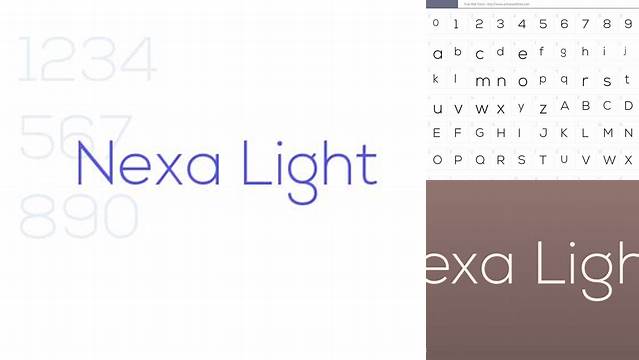
Nexa Light: Free Font Download Guide
Nexa Light is a popular and versatile font that's perfect for a wide range of design projects. In this guide, we'll walk you through everything you need to know about Nexa Light, including where to find a free download, how to use it, and some creative ideas to get you started. So, let's dive in, guys!
1. What is Nexa Light Font?
Nexa Light is a modern sans-serif typeface known for its clean lines and geometric design. Created by Fontfabric, it's part of the larger Nexa family, which includes various weights and styles. Nexa Light is particularly favored for its readability and minimalist aesthetic, making it suitable for both headlines and body text. Its versatility has made it a staple in graphic design, branding, and web design projects.
When you're looking for a font that balances professionalism with a touch of contemporary flair, Nexa Light is a solid choice. Its geometric structure ensures clarity, while its light weight adds a subtle elegance. Think of it as the font that can dress up or dress down depending on the occasion. From corporate reports to creative posters, Nexa Light adapts seamlessly, giving your designs a consistent and polished look. Its broad character set supports multiple languages, making it a global-friendly option for international projects. Many designers love it, and for good reason: it’s a reliable workhorse that delivers quality every time.
2. Key Features of Nexa Light
Nexa Light boasts several key features that make it a standout font. Its clean, geometric structure provides excellent readability, even at smaller sizes. The font includes a comprehensive set of characters, supporting multiple languages and various typographic symbols. Additionally, Nexa Light offers a balanced design, making it suitable for both display and body text, enhancing its versatility across different design applications. The consistent weight and spacing contribute to a harmonious visual experience, ensuring that your text looks polished and professional in any context.
One of the most appealing features is its modern aesthetic, which lends a contemporary feel to any project. It's not just about looking good; it's about making your content accessible and engaging. The clear, uncluttered forms ensure that readers can easily digest information, whether it's on a website, in a brochure, or on a poster. Plus, the font’s adaptability means you can use it across various mediums without losing its impact. It’s designed to work seamlessly in both print and digital environments, making it a reliable choice for any designer. Its wide range of characters also supports different languages, ensuring that your message resonates with a global audience. It’s a font that truly understands the needs of modern design.
4. Using Nexa Light in Your Projects
Nexa Light's versatility makes it ideal for various projects. Use it for website headers, body text, logos, and branding materials. Its clean appearance ensures readability, making it perfect for both print and digital media. Experiment with different font sizes and weights to create visual hierarchy and emphasis. Pair it with bolder fonts for contrast or use it as the primary font for a minimalist design.
Consider how Nexa Light can elevate your brand's visual identity. Its modern aesthetic can bring a touch of sophistication to your marketing materials, from business cards to social media graphics. When designing a website, Nexa Light can improve user experience by ensuring content is easily readable and visually appealing. Think about using it in infographics to present data in a clear and engaging manner. The key is to leverage its strengths – its clarity, balance, and contemporary feel – to create designs that are both functional and aesthetically pleasing. Whether you’re creating a sleek corporate brochure or a vibrant social media campaign, Nexa Light can help you achieve a polished and professional look.
5. Nexa Light Alternatives
If you're unable to find a free download or prefer alternative fonts, consider Open Sans, Lato, or Montserrat. These fonts share similar characteristics with Nexa Light, offering clean, modern designs that are freely available. They provide excellent readability and versatility, making them suitable for various design applications. Exploring these alternatives can help you achieve a similar aesthetic without the licensing constraints of a commercial font.
Each of these alternatives brings its own unique flavor to the table. Open Sans, for example, is a classic choice known for its neutrality and wide character support. Lato offers a slightly warmer feel with its rounded corners, making it a great option for projects that need a human touch. Montserrat, on the other hand, has a more geometric and slightly bolder presence, perfect for making a statement. Experimenting with these fonts can help you discover new favorites and expand your design toolkit. Don’t be afraid to mix and match them with other fonts to create interesting combinations. The world of typography is vast and exciting, so dive in and see what you can create!